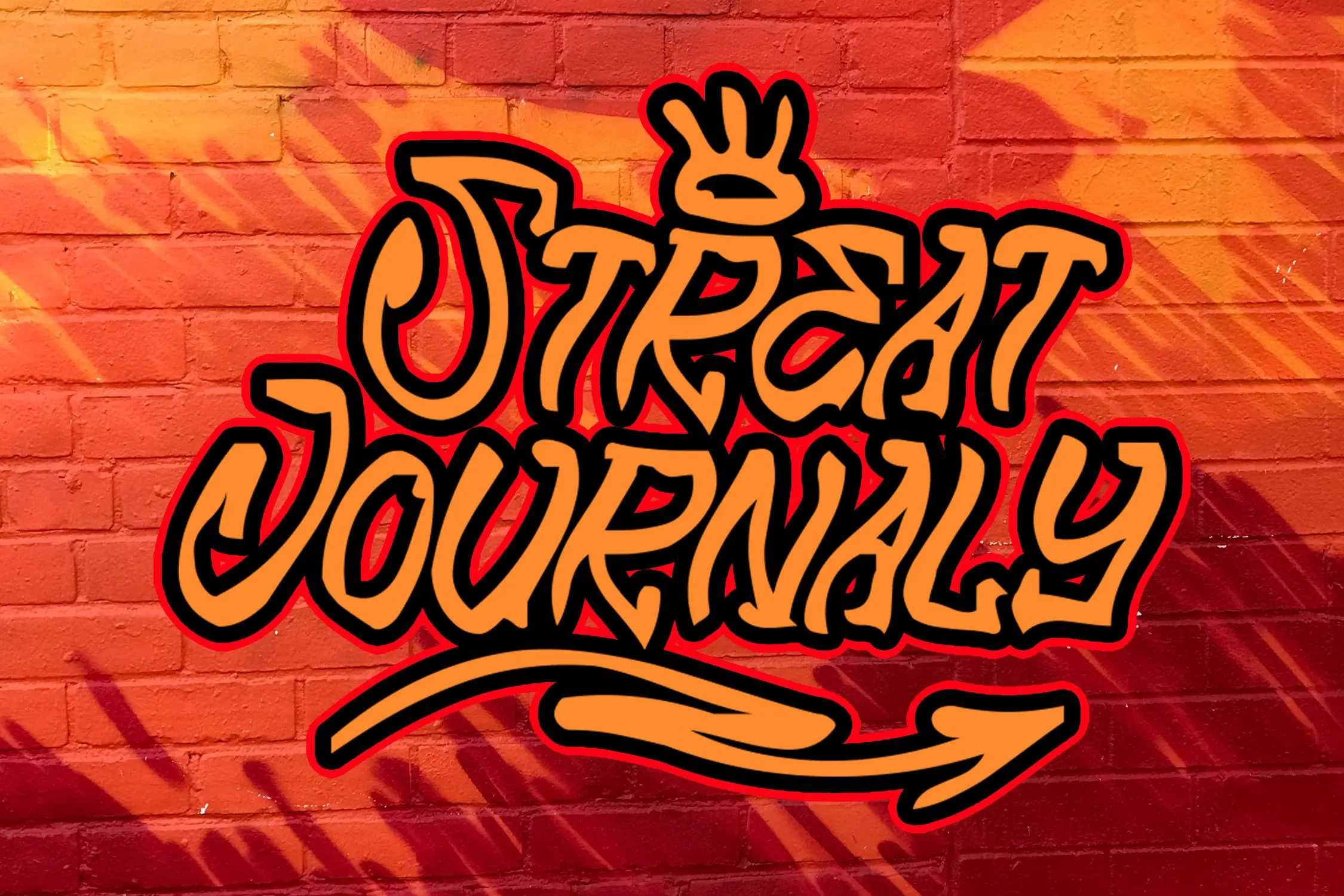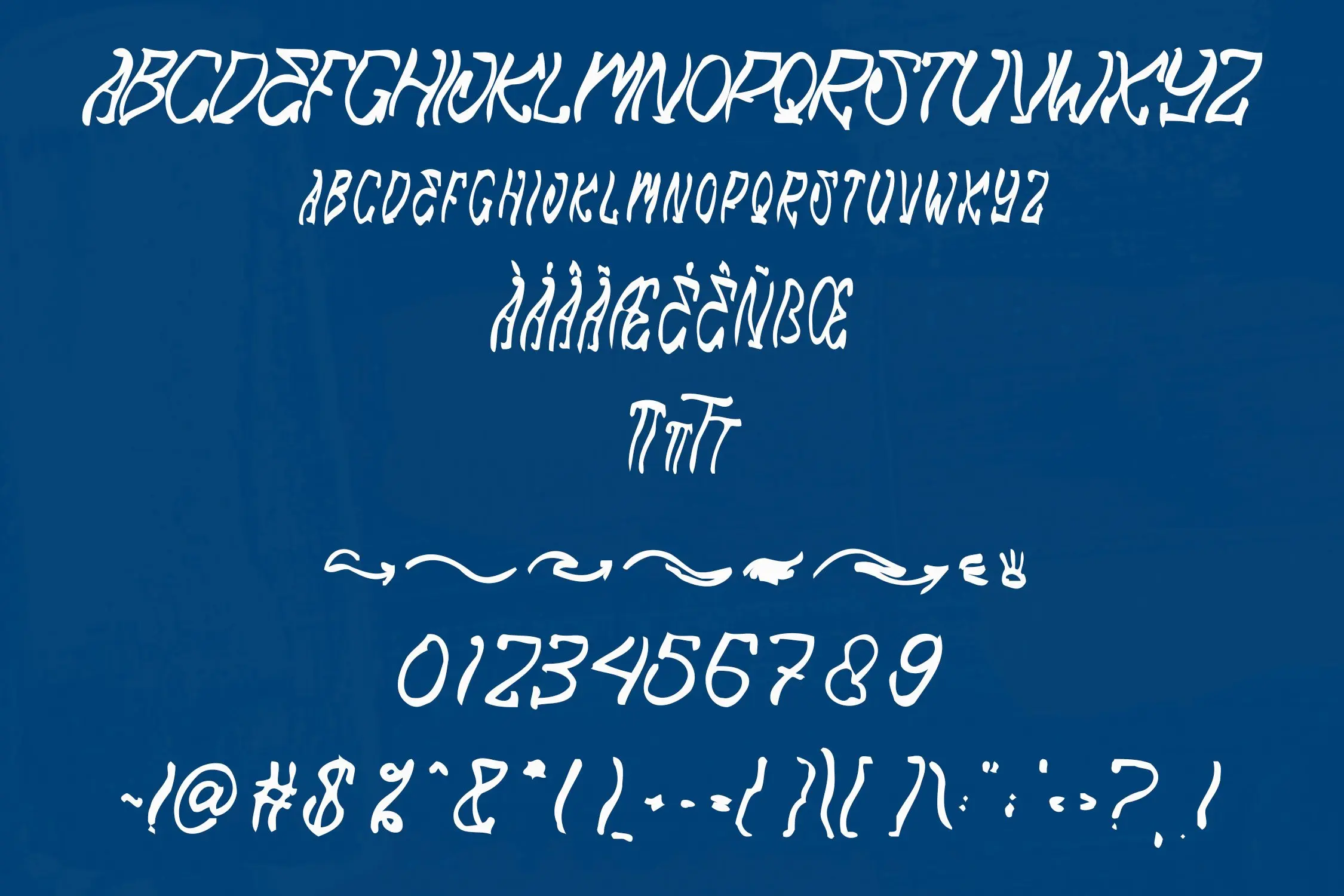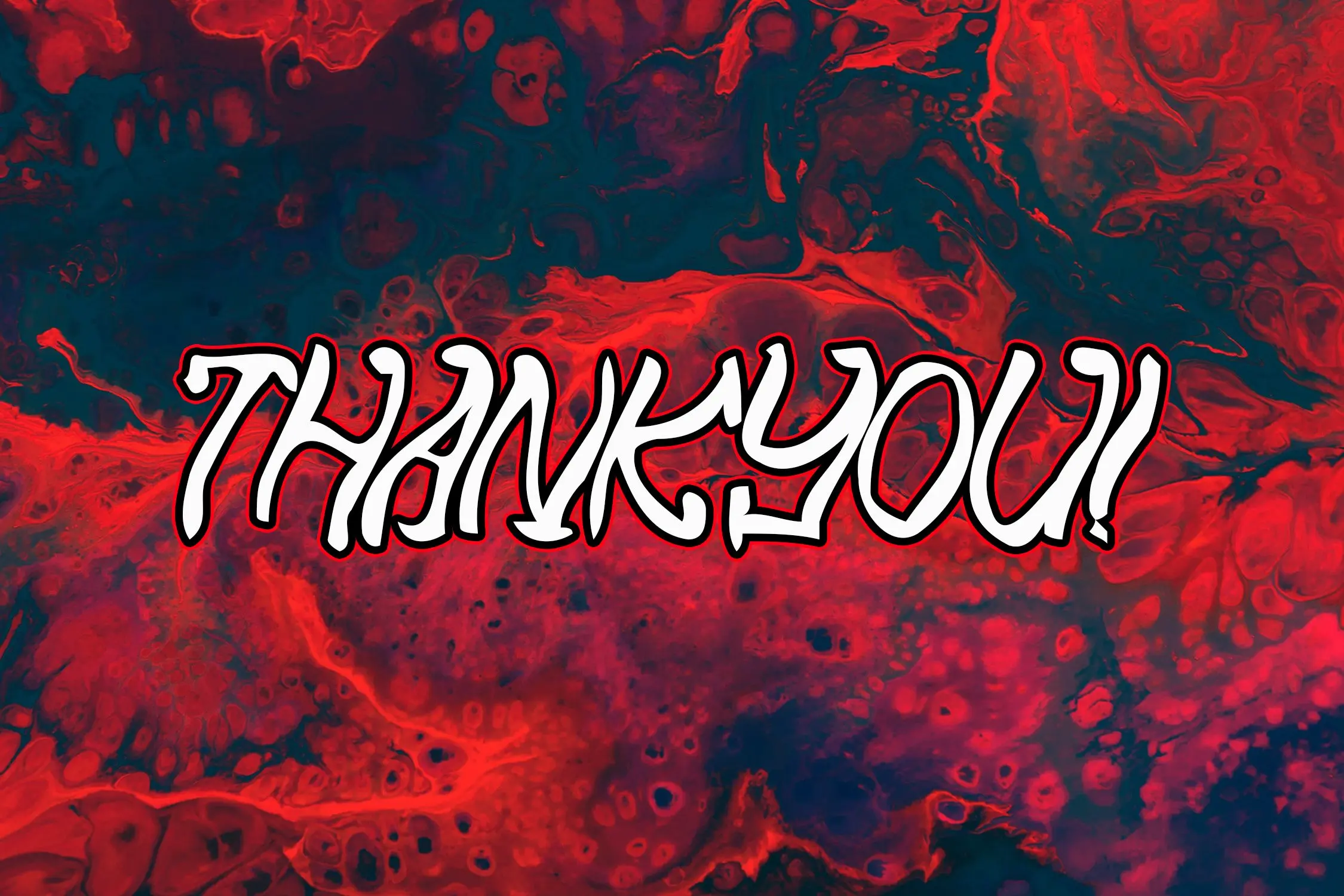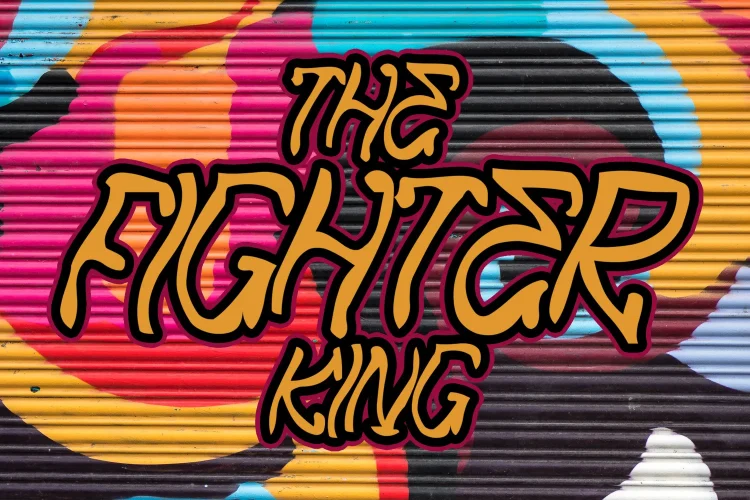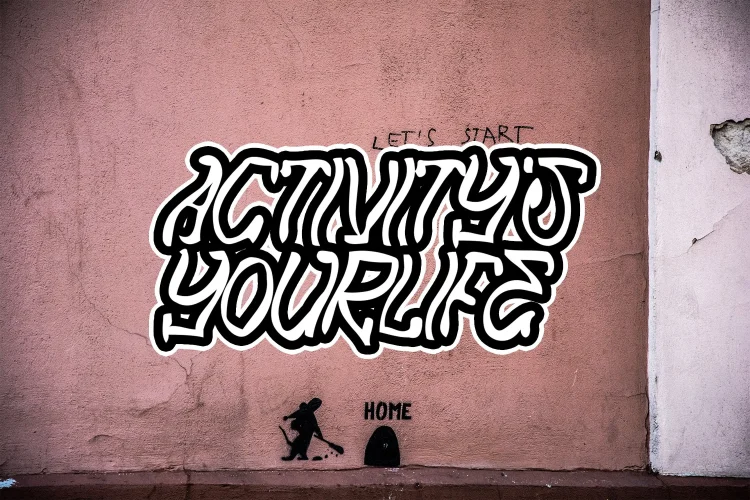
VIBERIAN is a rough handbrush-style font with unique character shapes, perfect for creating bold and striking designs. Its raw and dynamic look makes it ideal for logos, branding, posters, and other creative projects.
- Ligatures
- Stylistic Alternates
- Swashes
- Multilingual Support